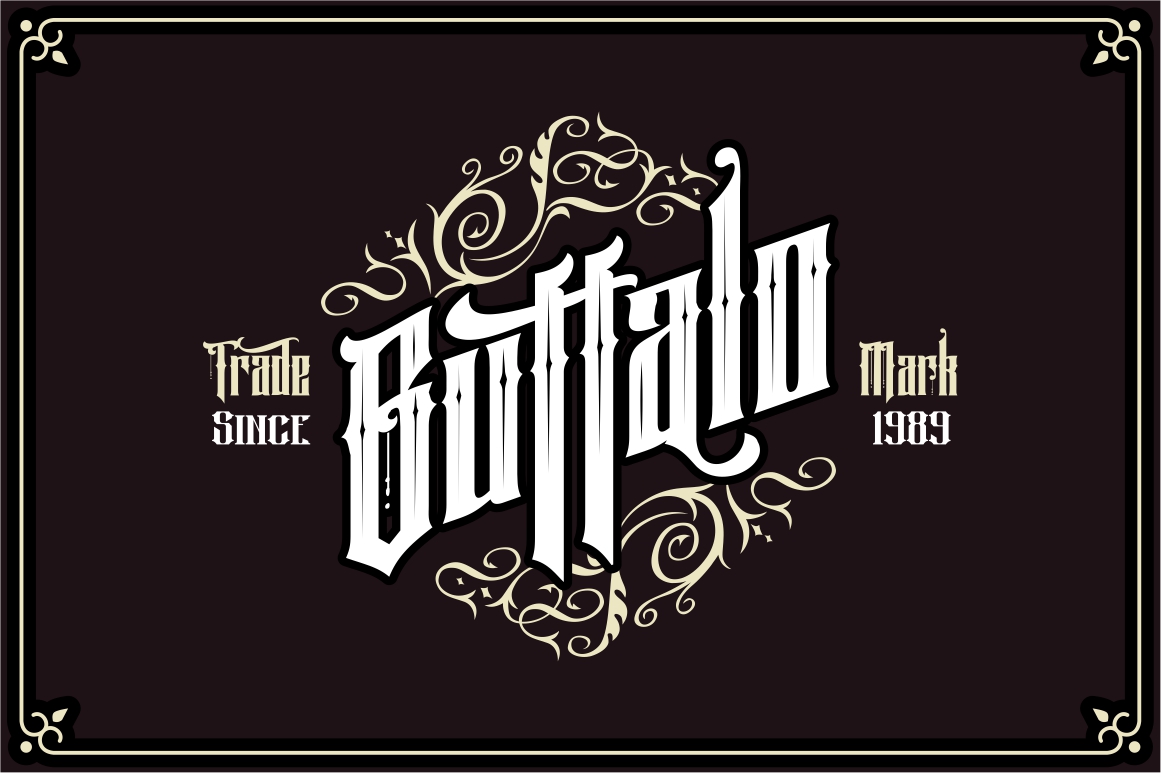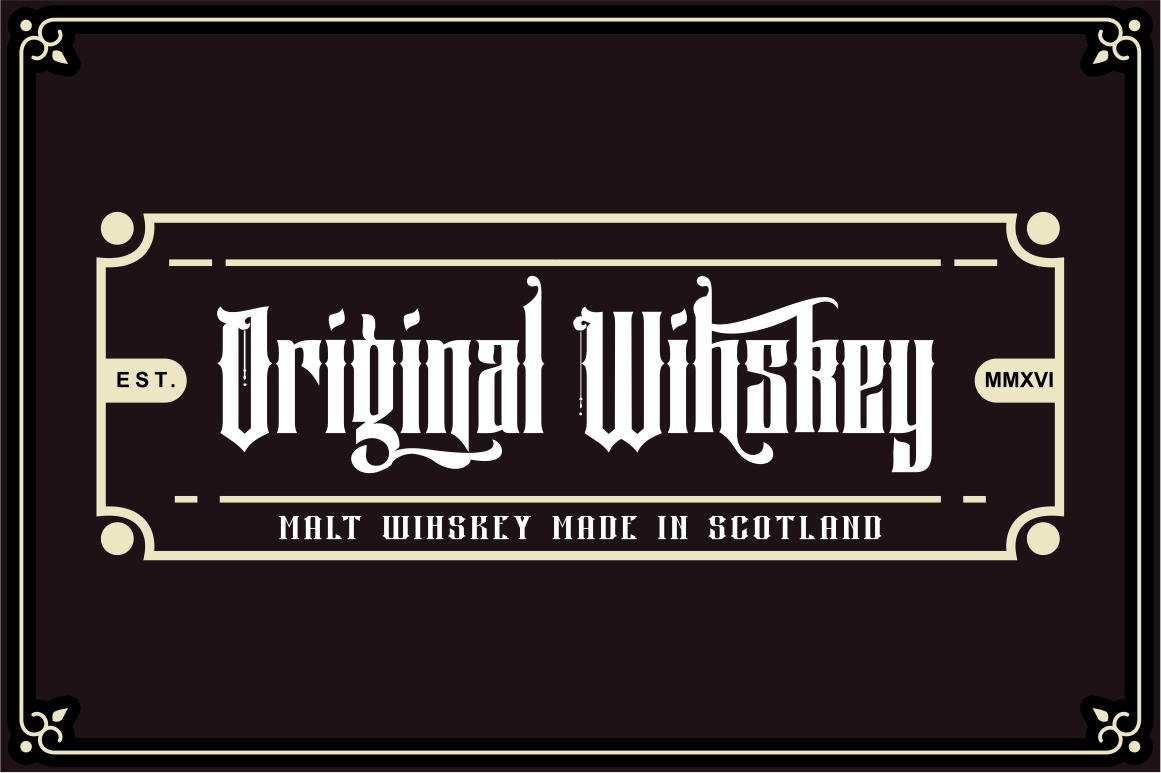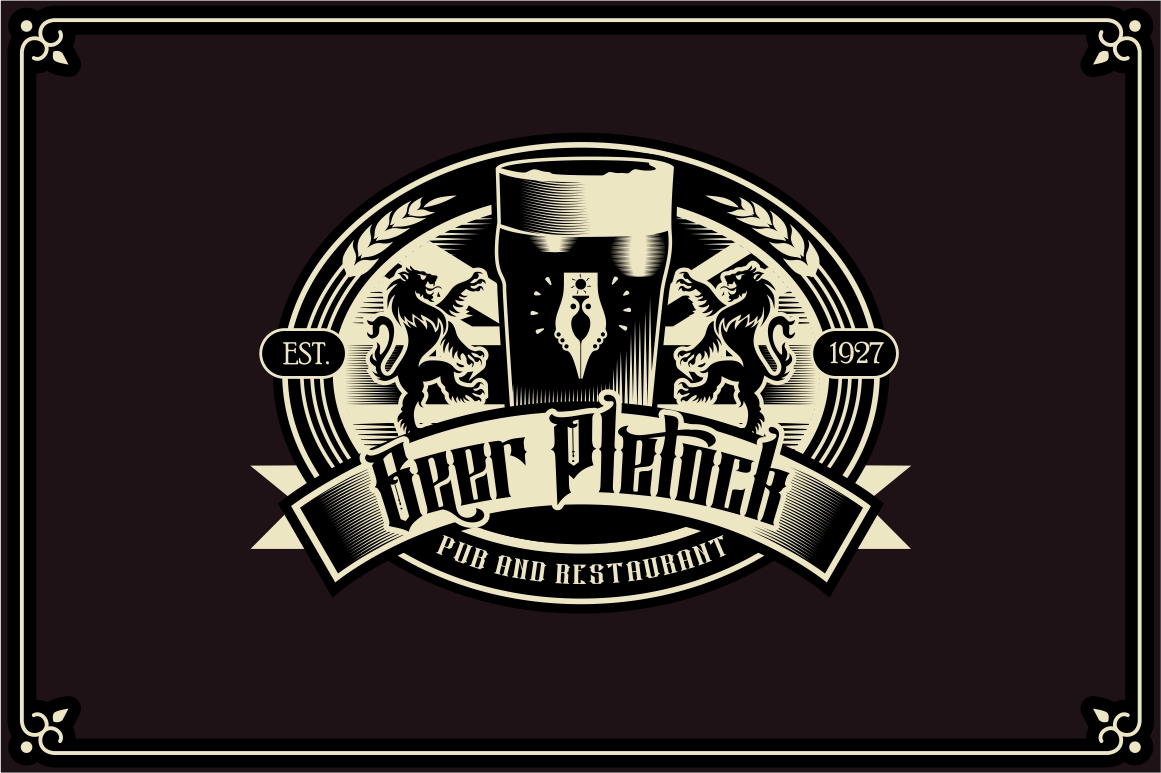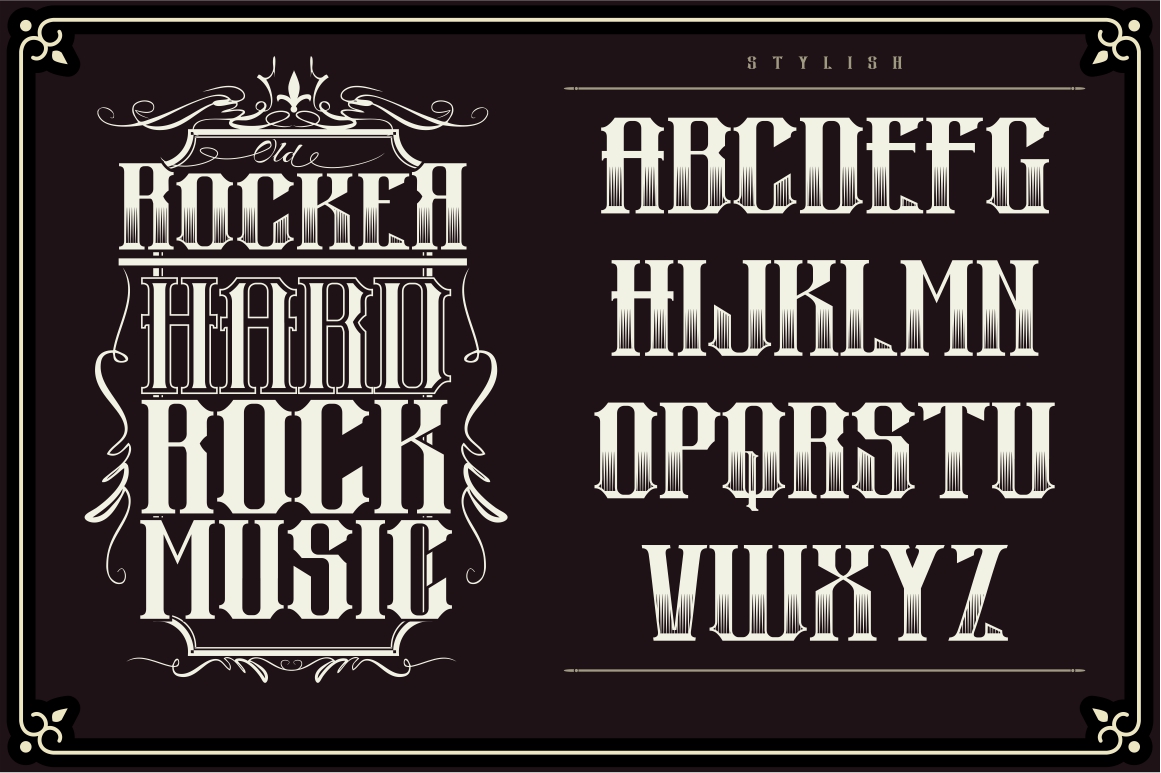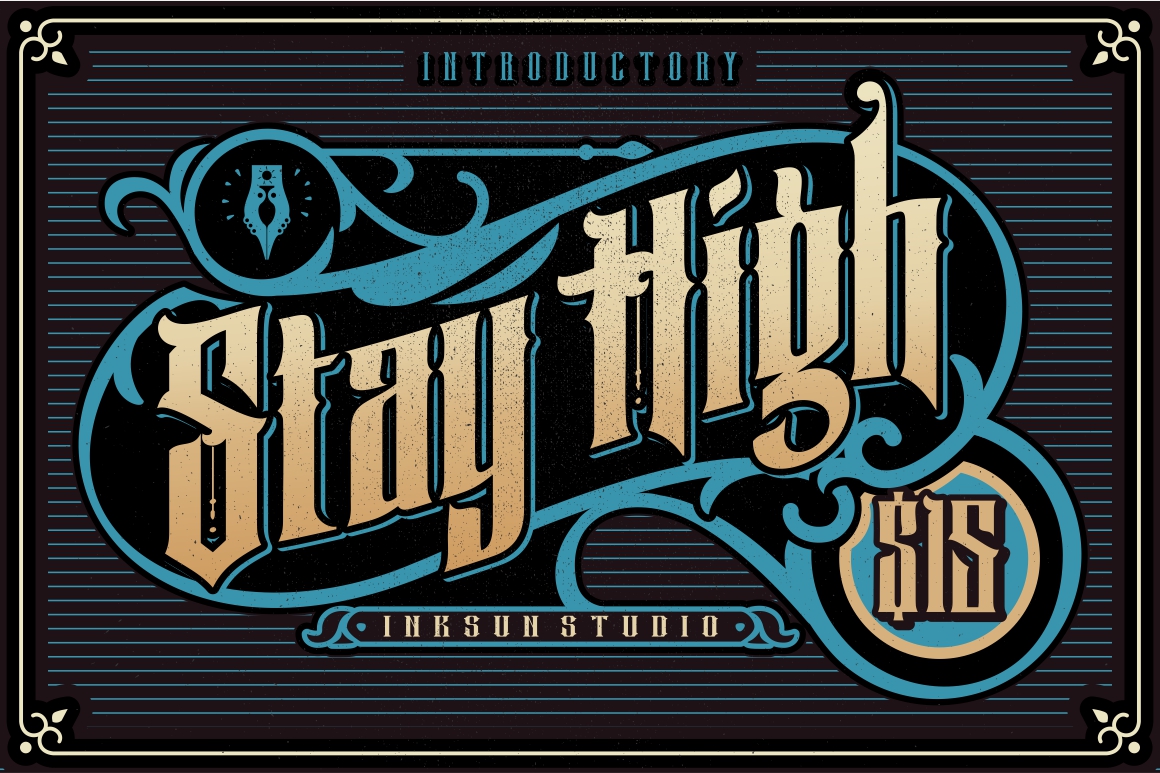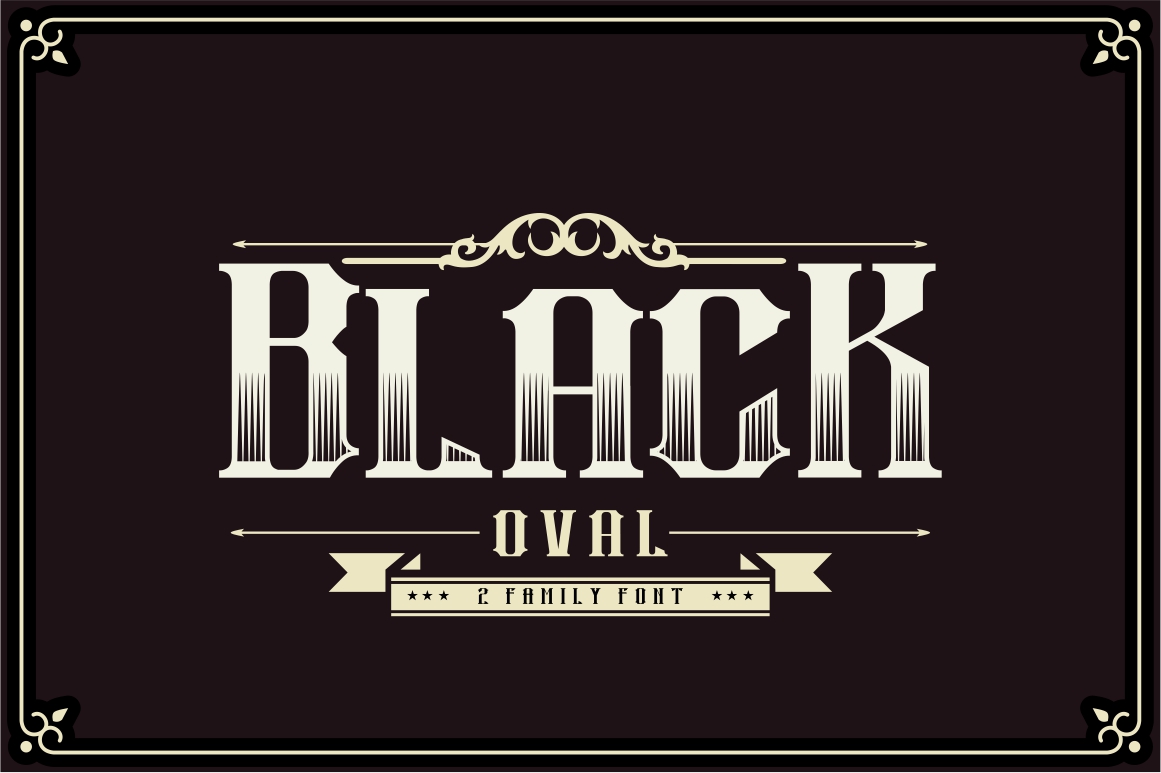
Stay High Font
About Stay High Font
Stay High is a captivating blackletter font infused with a touch of modern vintage style, creating a truly unique visual experience. When paired with the complementary Black Oval font, this set becomes a stylistic masterpiece, boasting bold and brazen design elements that are sure to captivate your audience.
What sets Stay High apart is its seamless blend of traditional blackletter aesthetics with contemporary design elements. The result is a font set that exudes both nostalgia and modernity, making it a versatile choice for a wide range of design projects.
Whether used for branding, signage, or editorial layouts, Stay High and Black Oval offer a striking combination that commands attention. Their bold strokes and intricate details add depth and character to any design, ensuring that your message stands out amidst the noise of the digital world.
Despite its bold design, Stay High prioritizes readability and user experience. Each letter is carefully crafted to maintain clarity and legibility, ensuring that your content is easily understood by your audience across various platforms and devices.
With Stay High and Black Oval, designers have the freedom to explore endless creative possibilities. Whether you’re aiming for a vintage-inspired aesthetic or a bold and contemporary look, this font set provides the tools you need to bring your vision to life.
In conclusion, Stay High and Black Oval are more than just fonts—they’re a bold statement of style and creativity. With their modern vintage flair and bold design elements, they offer a unique opportunity to elevate your designs and leave a lasting impression on your audience.